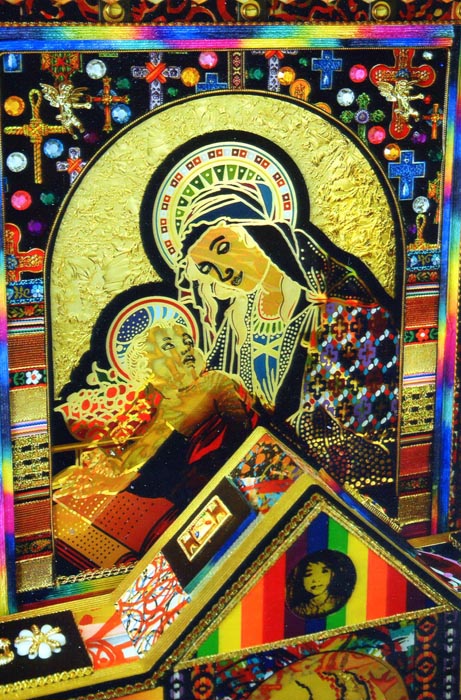
Glass Gilding and PUblic Art Projects
Robert Schwieger
Using glass gilding in Public Arts Projects. Images illustrate recent work for Lincoln Arts Council Stories of Home Public Art Project. Includes 5 glue chipped and gilded panels, 25 screenprinted and burnished gold panels, 24 screenprinted mirror panels and reamaining surfaces are screenprinted monotypes on paper.
Sorry about the oversight. This work which measures 62"x48"x24" was completed by me, Robert Schwieger, in Lincoln Nebraska. Bob
Keep the techinques exclusive and you will have some nice treasures there.